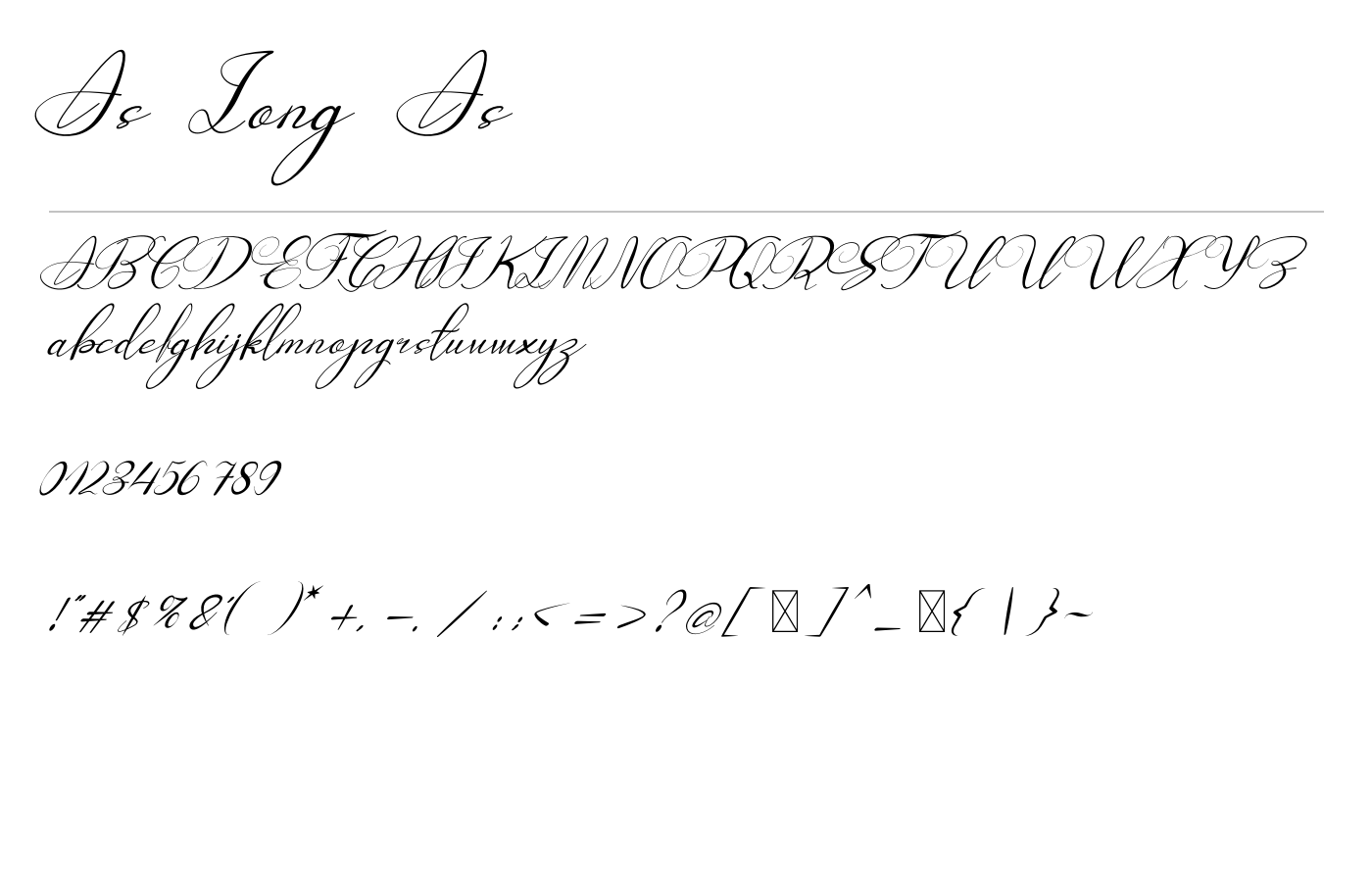
As Long As Font is a delicate, elegant script typeface characterized by its fine, flowing strokes and graceful cursive forms. It features a high contrast between thick and thin lines with beautifully looped capitals and slender lowercase letters, giving it a refined and sophisticated feel perfect for luxury branding, wedding invitations, and elegant editorial designs. This font shines in contexts where a touch of classic, handwritten charm is desired to evoke romance and timeless beauty.
As Long As Font